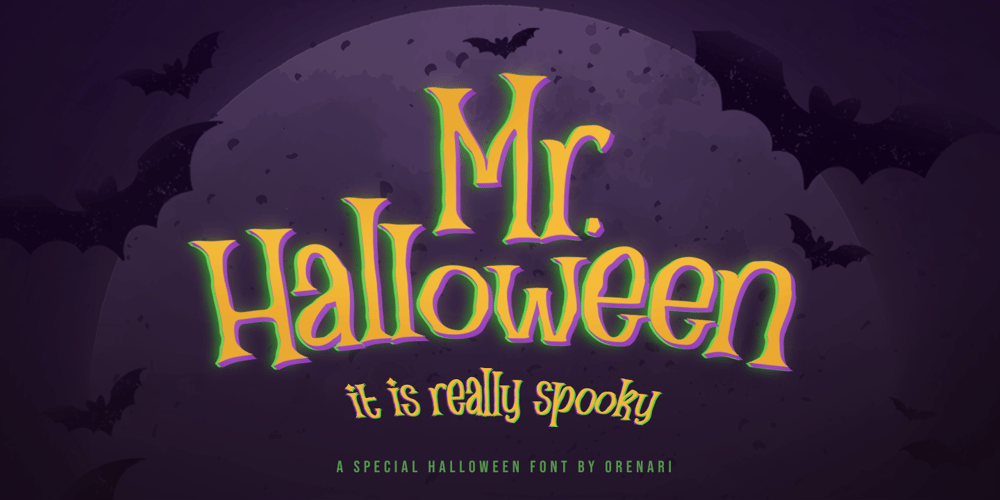
Mr Halloween Font Family was designed by Lia Wijayanti and published by Orenari. Mr Halloween contains 1 styles and family package options. Boo!Welcome Halloween with Mr. Halloween font!Mr. Halloween font is specially designed for Halloween or another spooky yet horror occasion. This font has rough texture, so it will bring the creepy atmosphere in every glyph.It’s really horror when your project didn’t meet the perfect font. So let Mr. Halloween be friends with your design and craft projects.